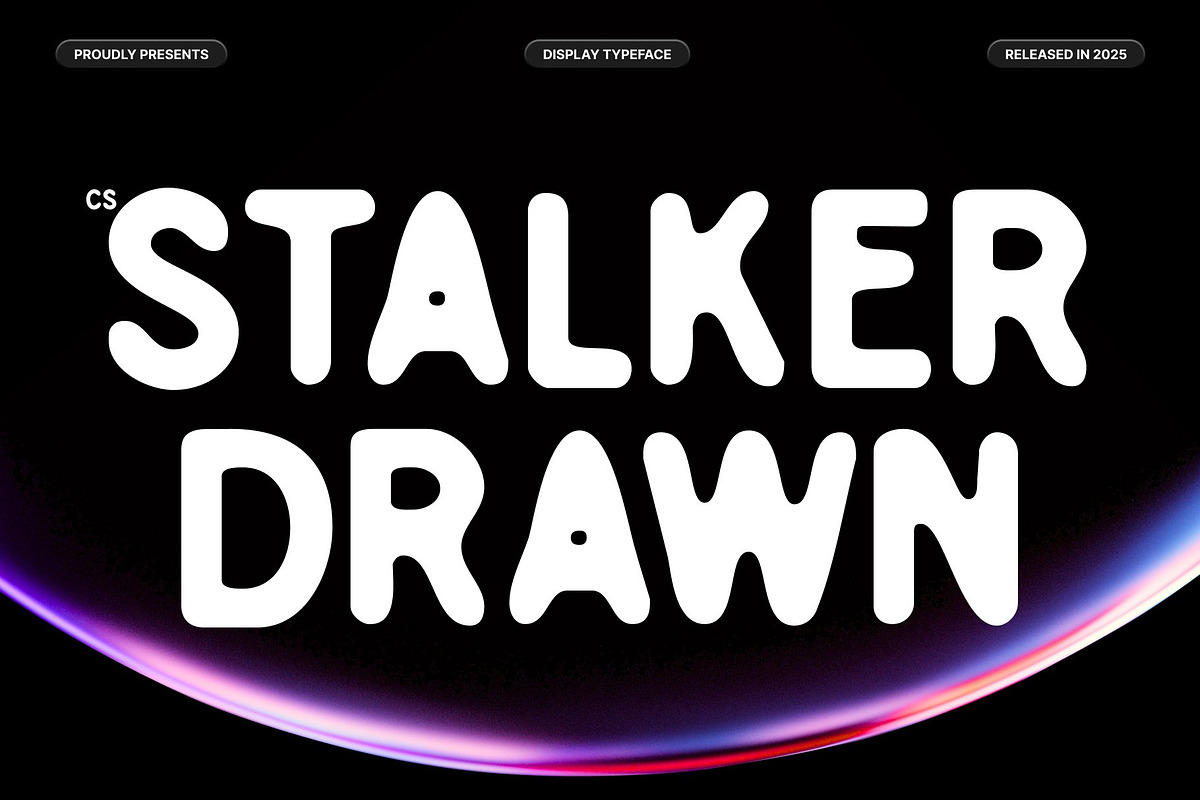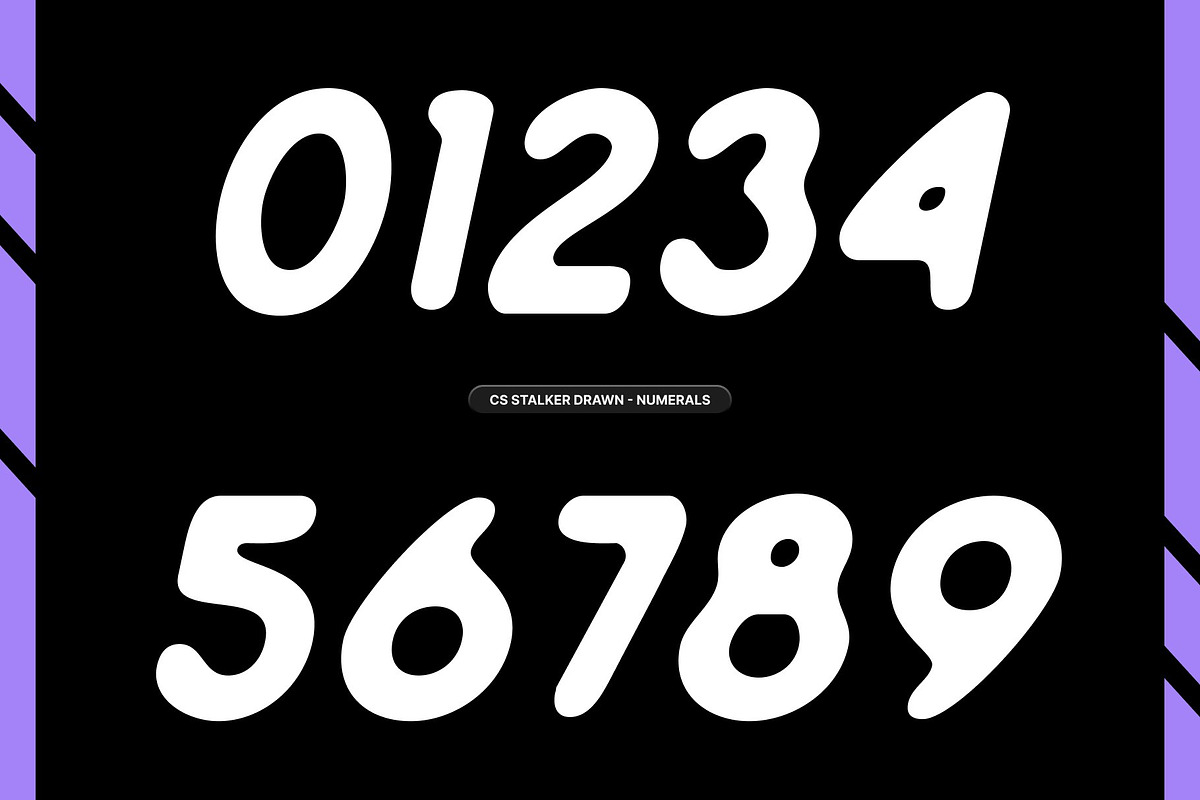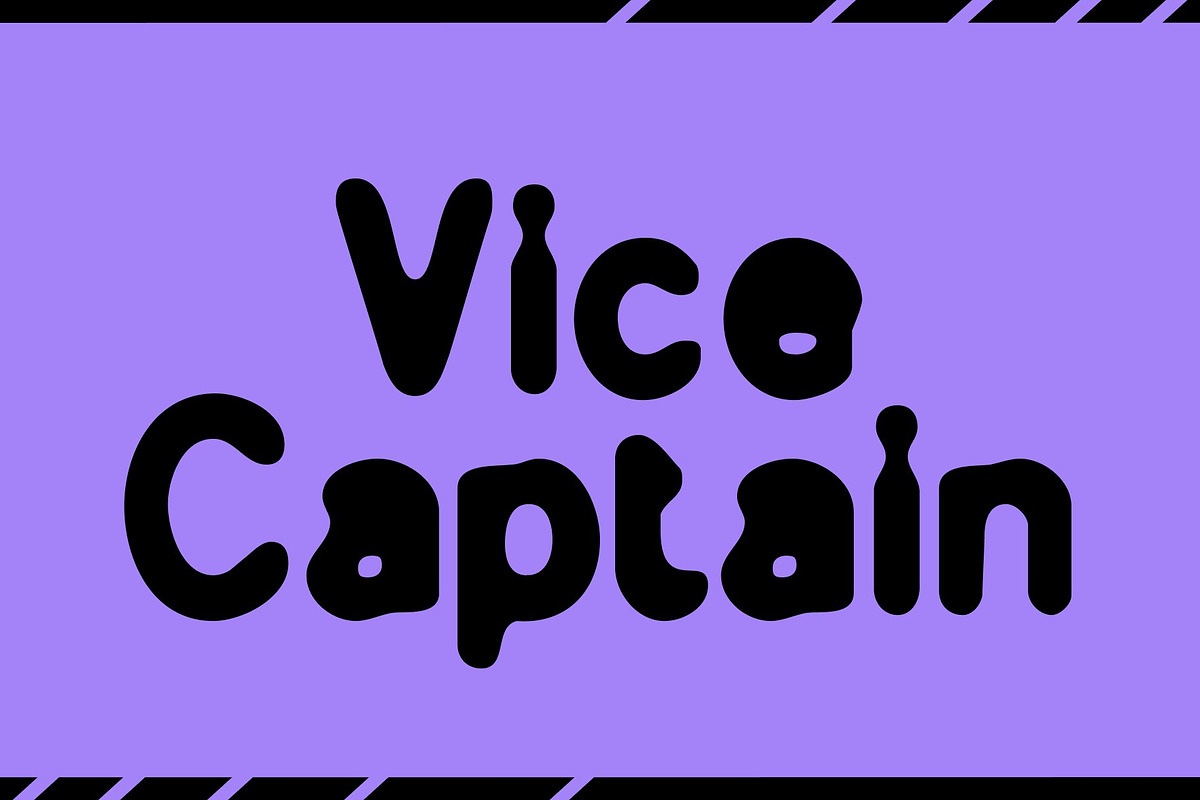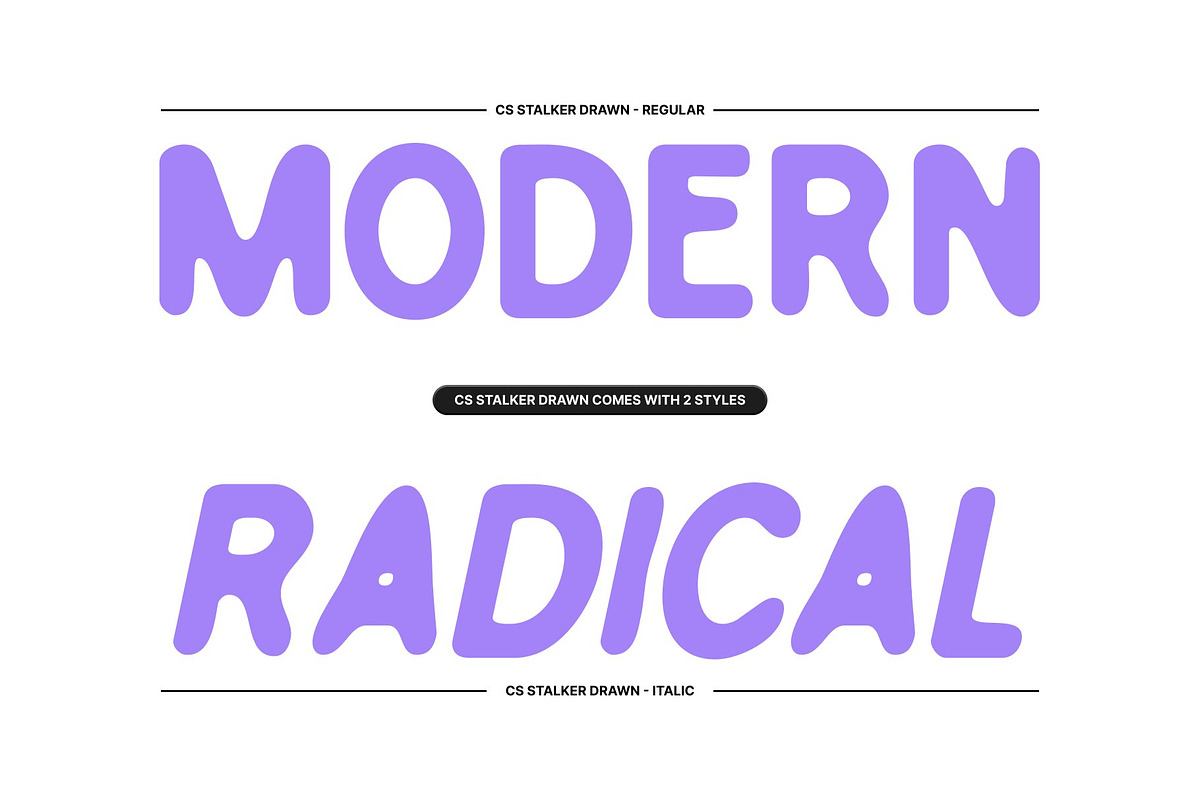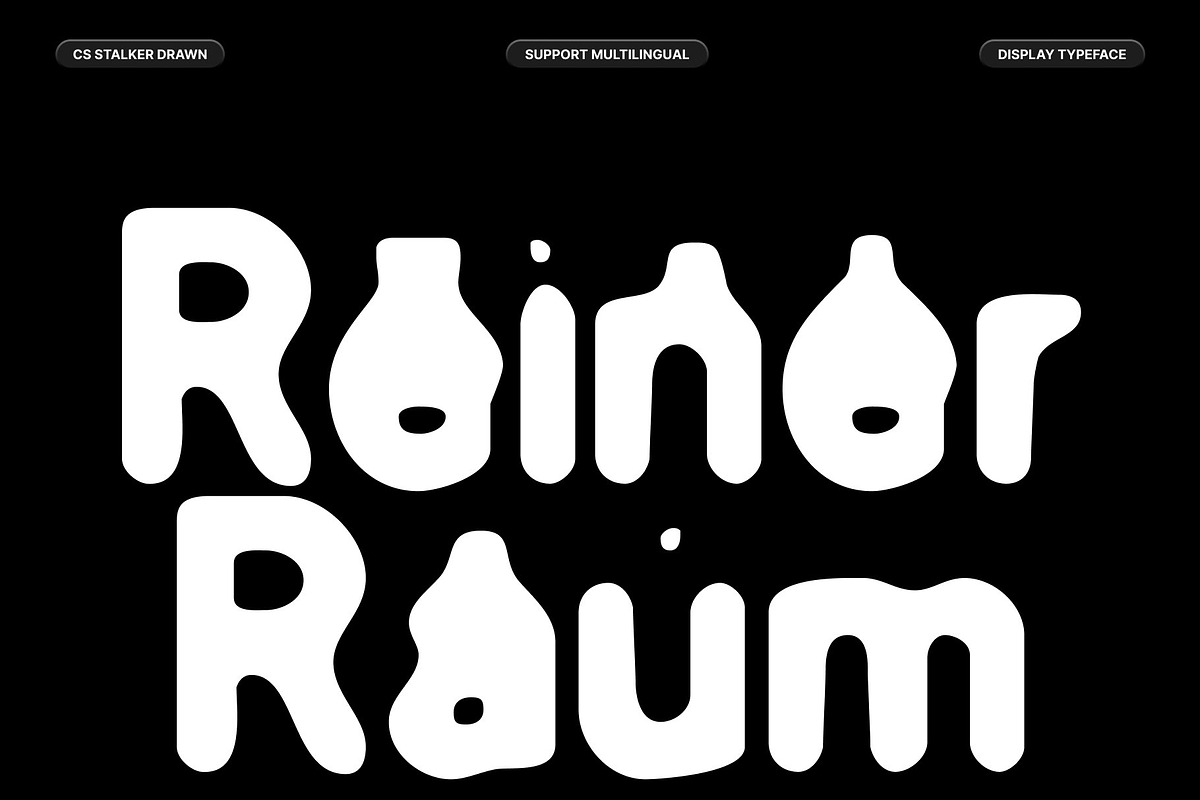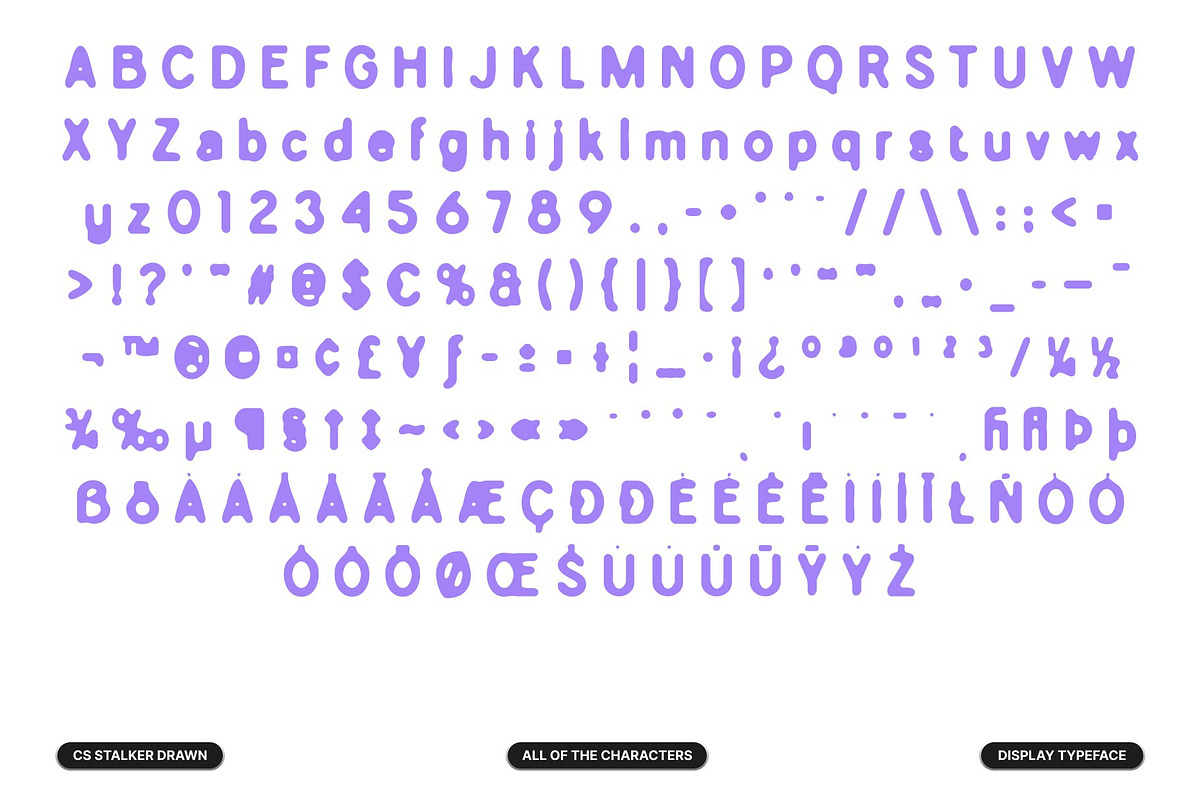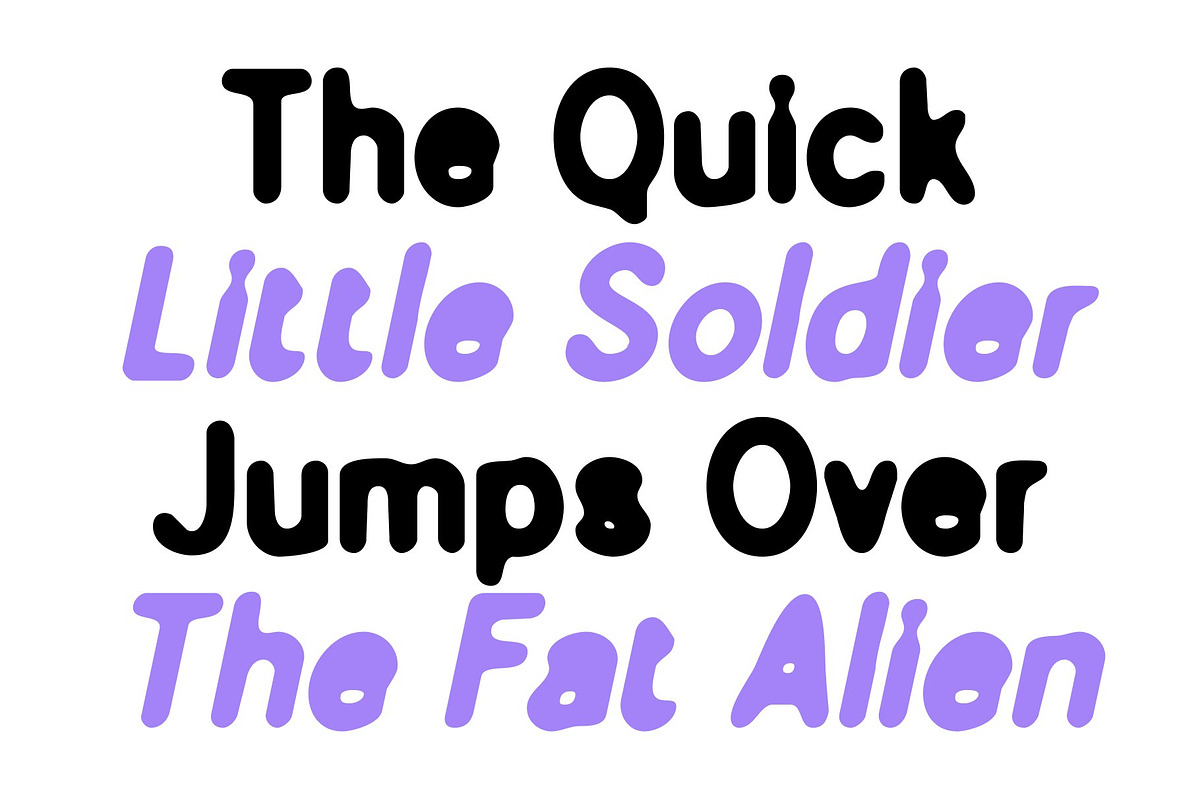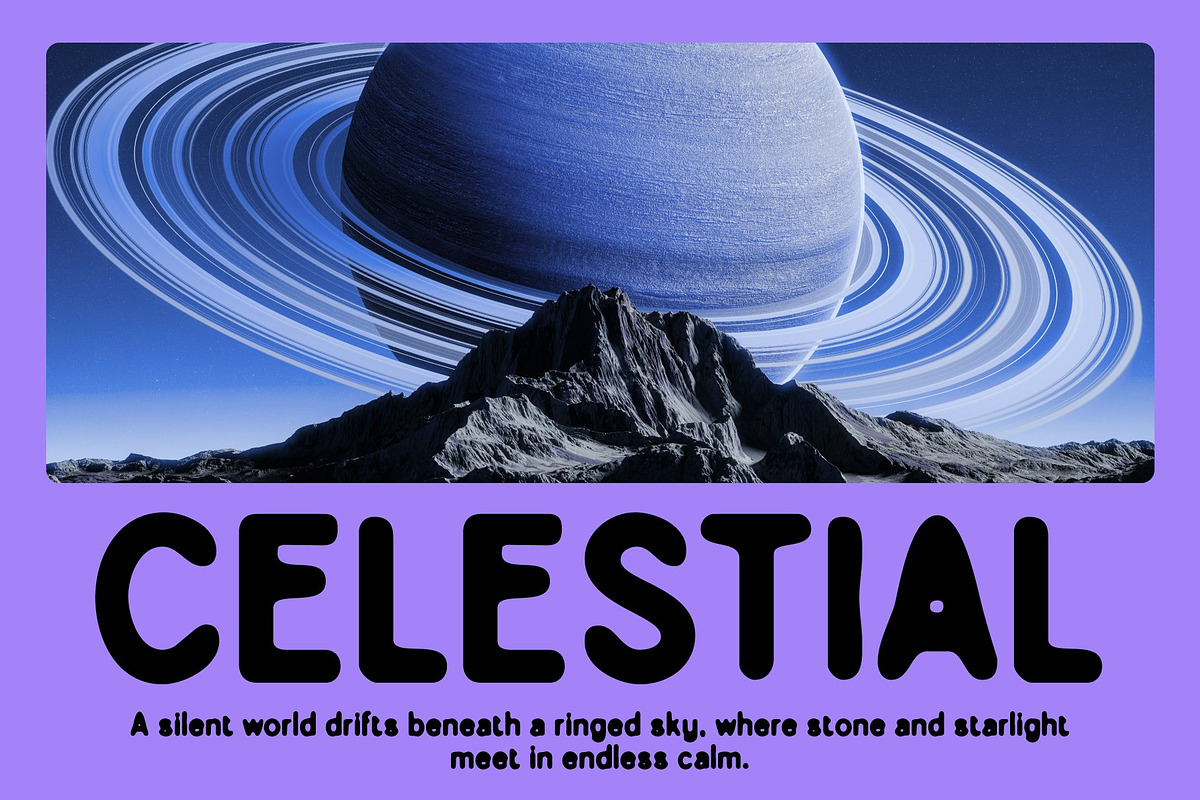
CS Stalker Drawn
CS Stalker Drawn – Modern Sans Serif Font with Soft Geometric Character
Geometric Precision with a Modern Feel This is a modern sans serif font built on a clean and well-defined geometric structure. Its balanced proportions and clear construction create a strong sense of order and precision, making the font feel contemporary, reliable, and visually refined.
Drawn Texture for Unique and Soft Expression The drawn effect adds subtle irregularities to each letter, giving this font a natural, handcrafted character. This gentle texture softens the geometric forms, transforming sharp precision into smooth, approachable shapes while maintaining a polished and modern appearance.
Clarity Balanced with Creative Distinction Designed to prioritize readability, this font delivers excellent clarity across various sizes and applications. At the same time, its drawn details introduce a quiet creative edge, allowing the font to stand out without becoming distracting or overly expressive.
Perfect for Precise and Thoughtful Design Projects Ideal for branding, editorial layouts, digital interfaces, and modern promotional materials, this font suits projects that value precision, clarity, and subtle creativity. It’s a versatile typeface that communicates professionalism with a soft, distinctive personality.
- CS Stalker Drawn Regular
- CS Stalker Drawn Italic